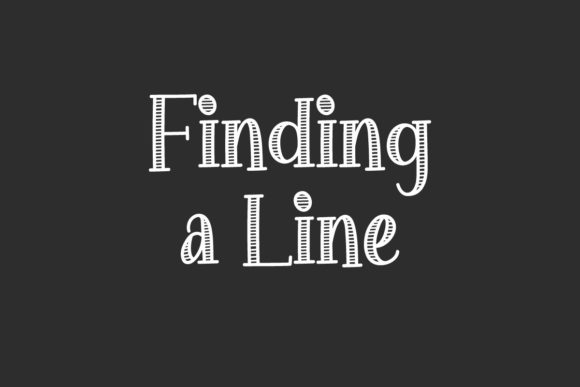
Unleash the Power of Authenticity: Discover Finding a Line, the Serif Font That Embraces the Essence of Originality
In a world saturated with mediocrity, break free from the mundane and embrace the striking beauty of Finding a Line, a serif font that embodies the essence of authenticity. Created by the visionary minds at Vintype, this font family is not just a collection of letters; it's an invitation to express yourself with raw boldness and unwavering confidence.
Finding a Line is more than just a font; it's a gateway to a world of creativity where your ideas take center stage. Its strong and resolute strokes command attention, while its elegant curves add a touch of sophistication. Whether you're crafting school papers, designing captivating marketing materials, or simply seeking to add a dash of individuality to your personal projects, this font is your perfect companion.
Imagine the impact of your words when they're adorned with the timeless beauty of Finding a Line. Your school papers will transform into masterpieces, your marketing campaigns will resonate with authenticity, and your personal projects will radiate with a charm that's uniquely yours.
With Finding a Line, you'll discover a font that's not just pleasing to the eye, but also a joy to use. Its intuitive design and effortless flow make it the perfect choice for those who seek both beauty and functionality. Let your fingers dance across the keyboard, and witness how effortlessly your ideas come to life, infused with the power of authentic expression.
Step into a realm where originality reigns supreme. Choose Finding a Line, and let your creativity soar to new heights. Embrace the beauty of authenticity and watch as your projects transform into expressions of your true self.